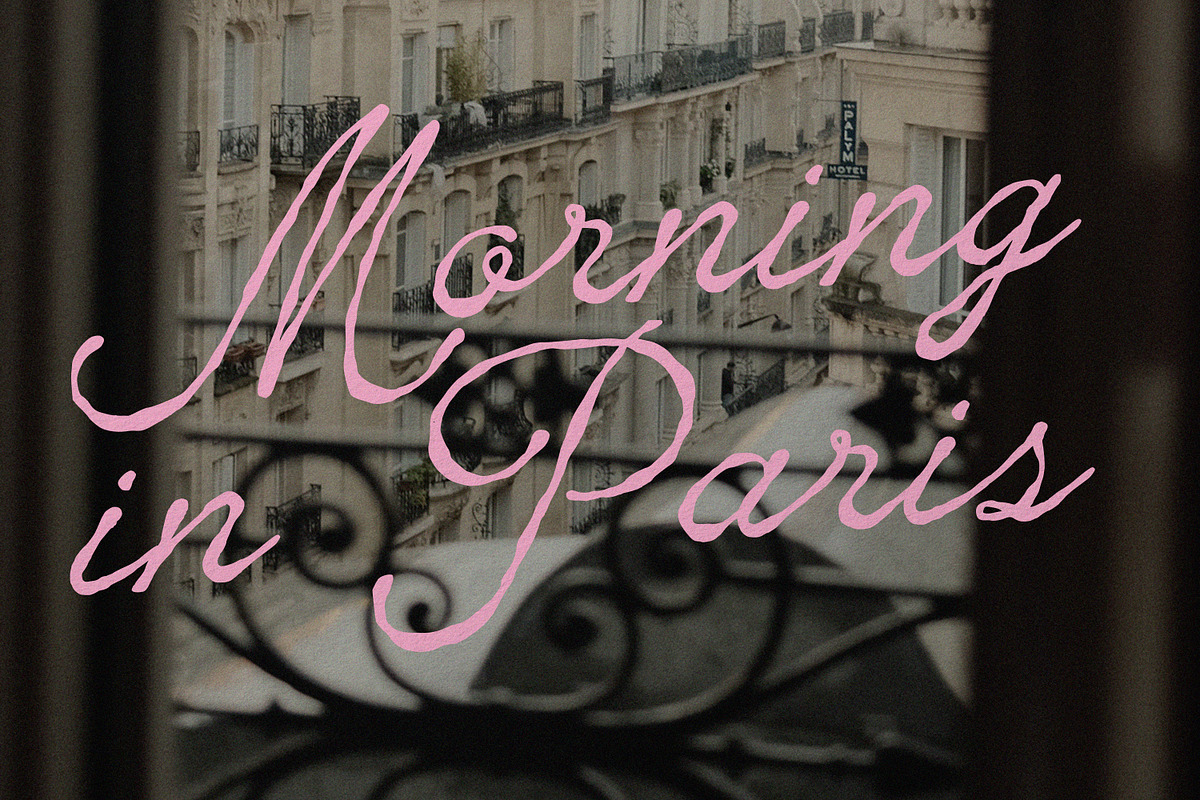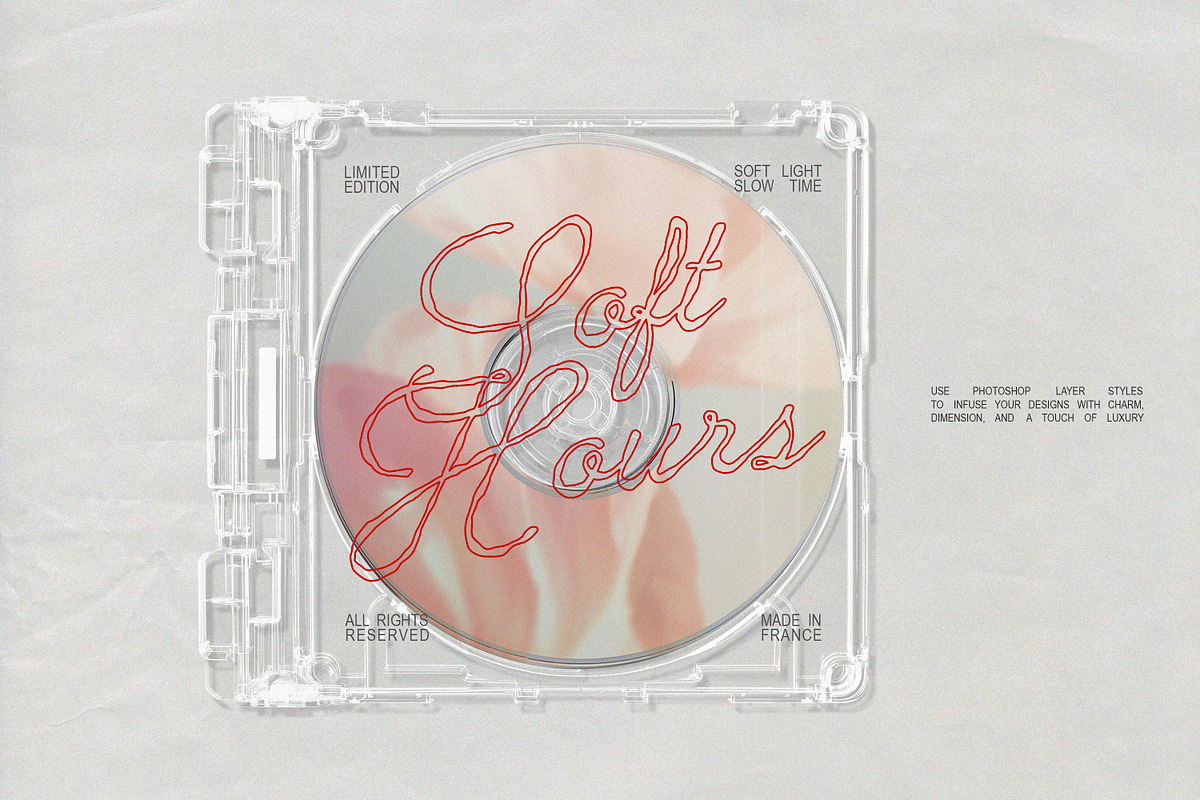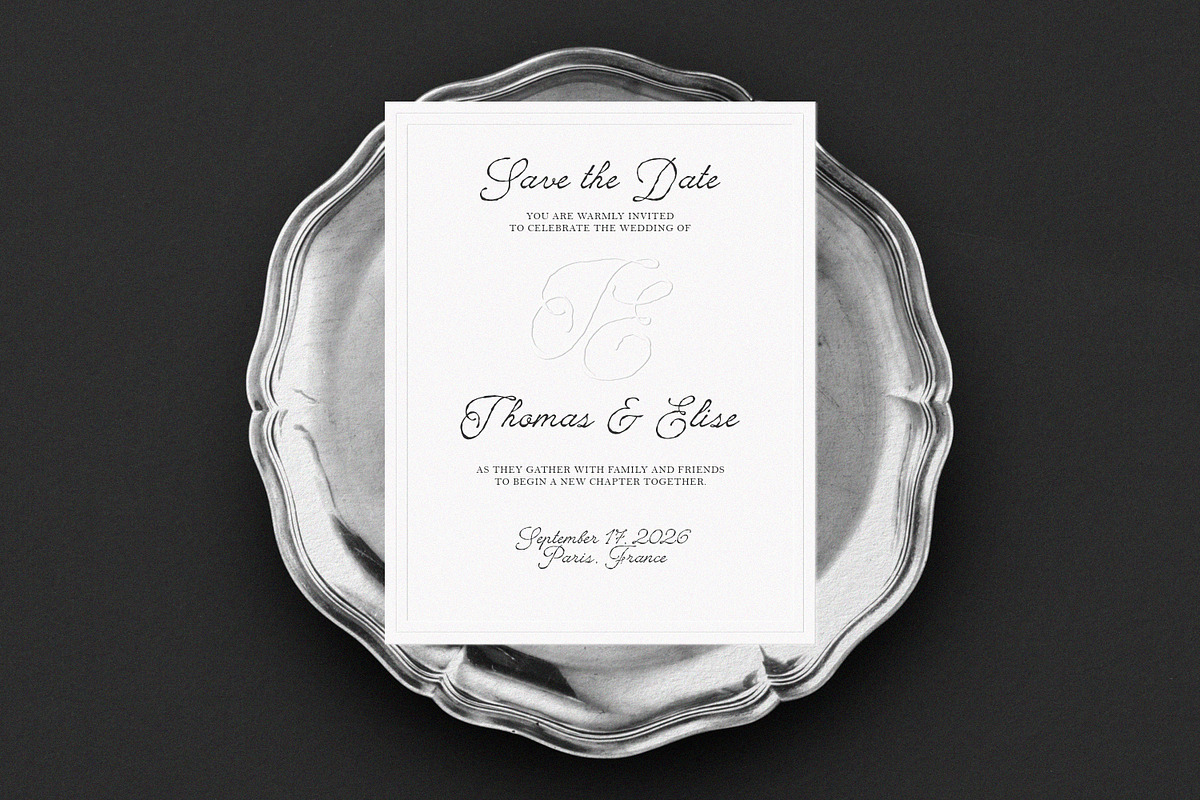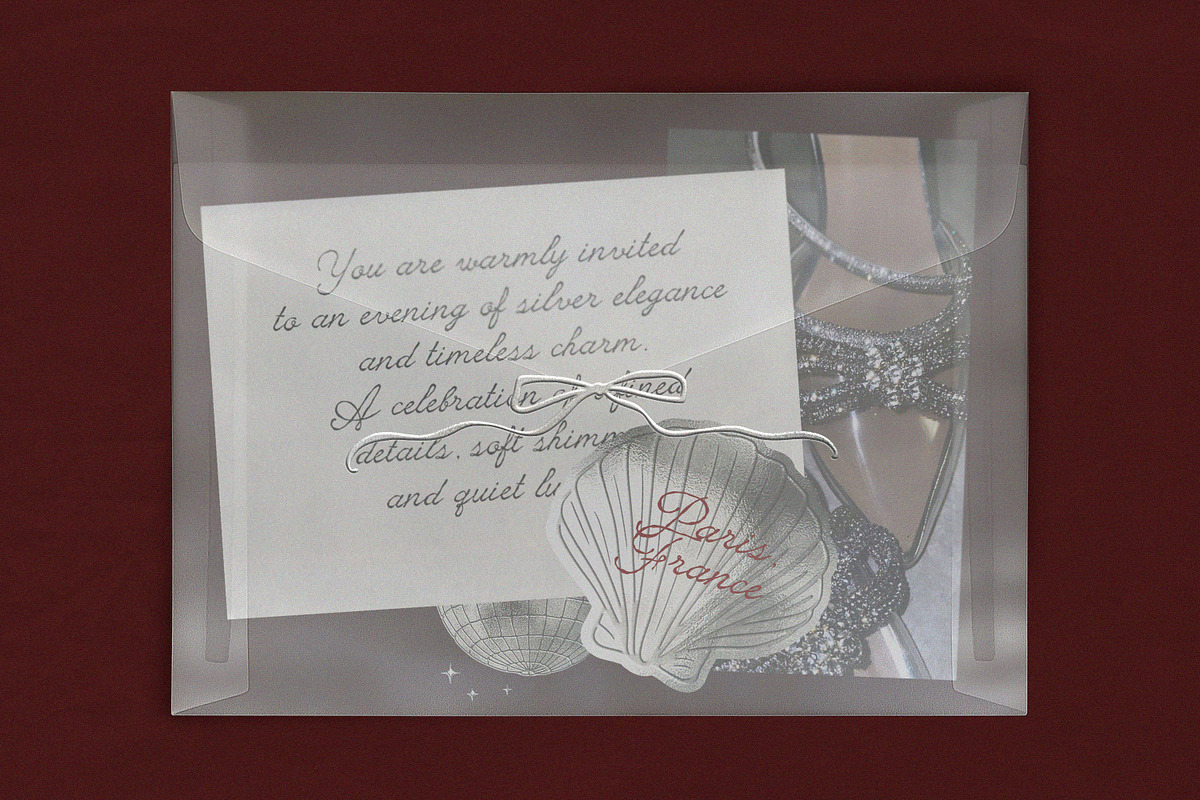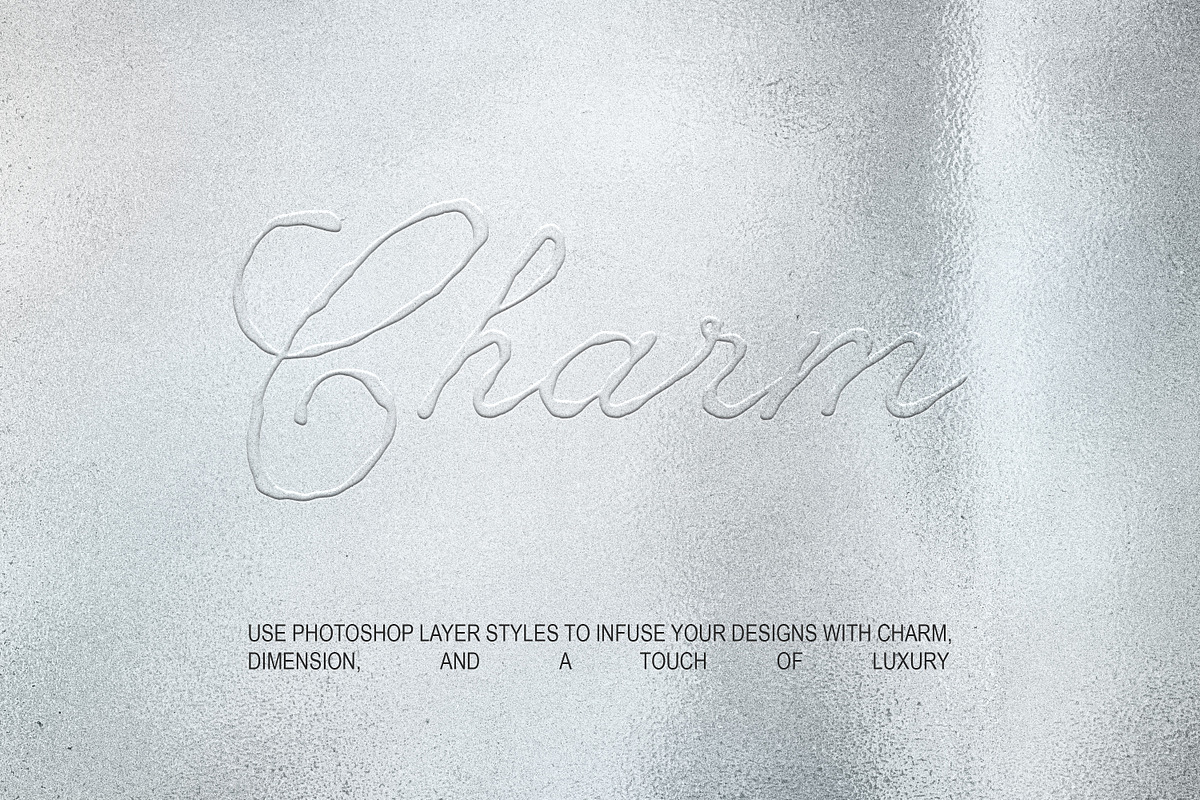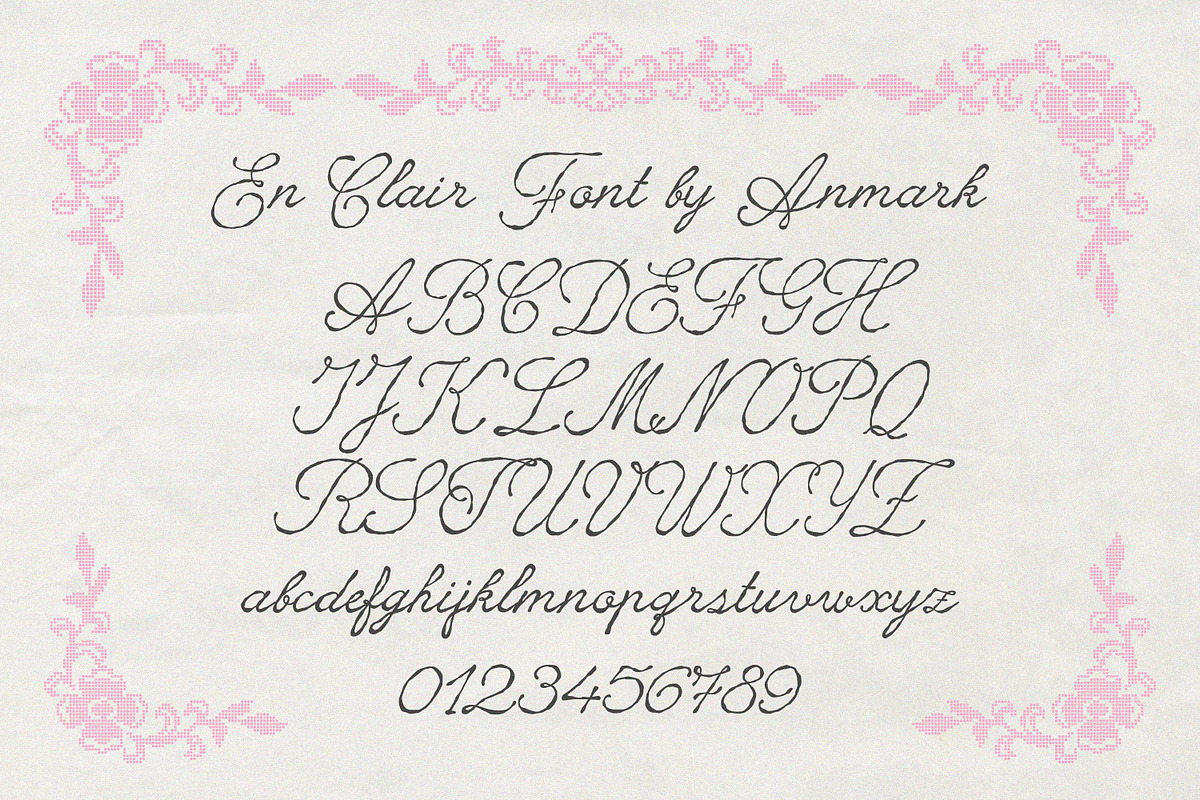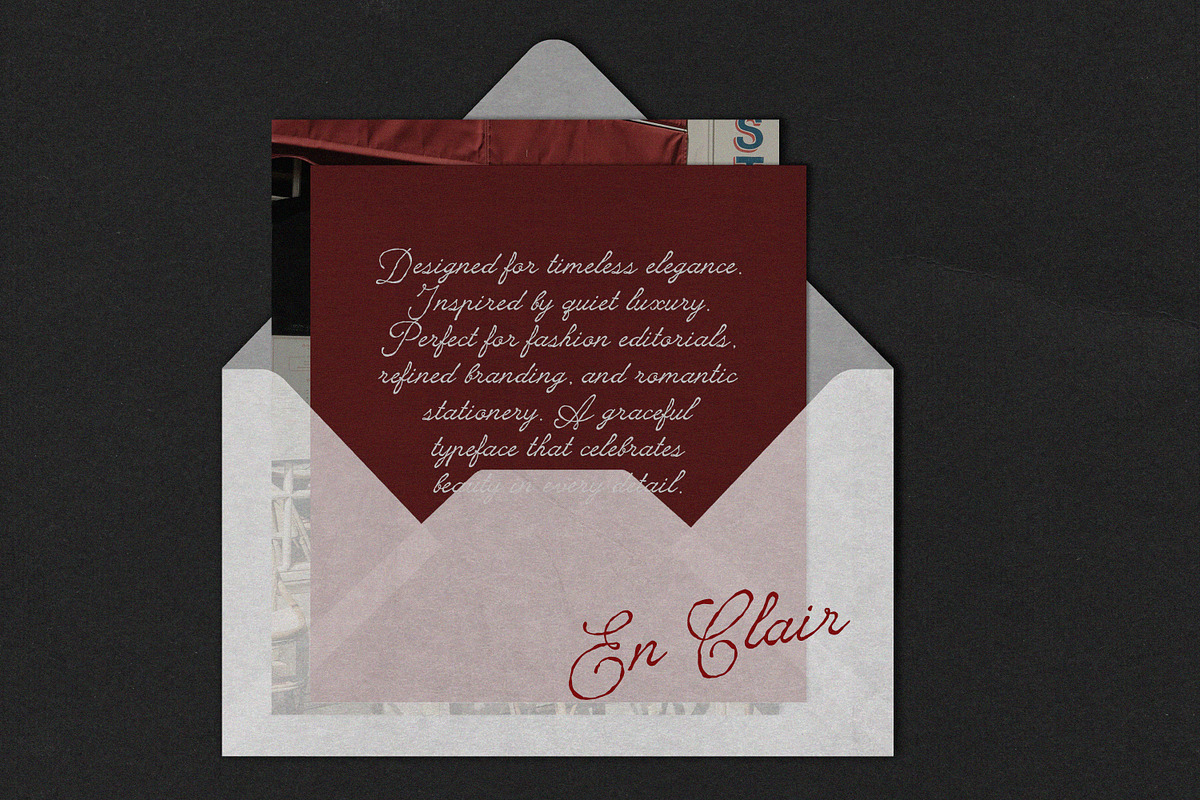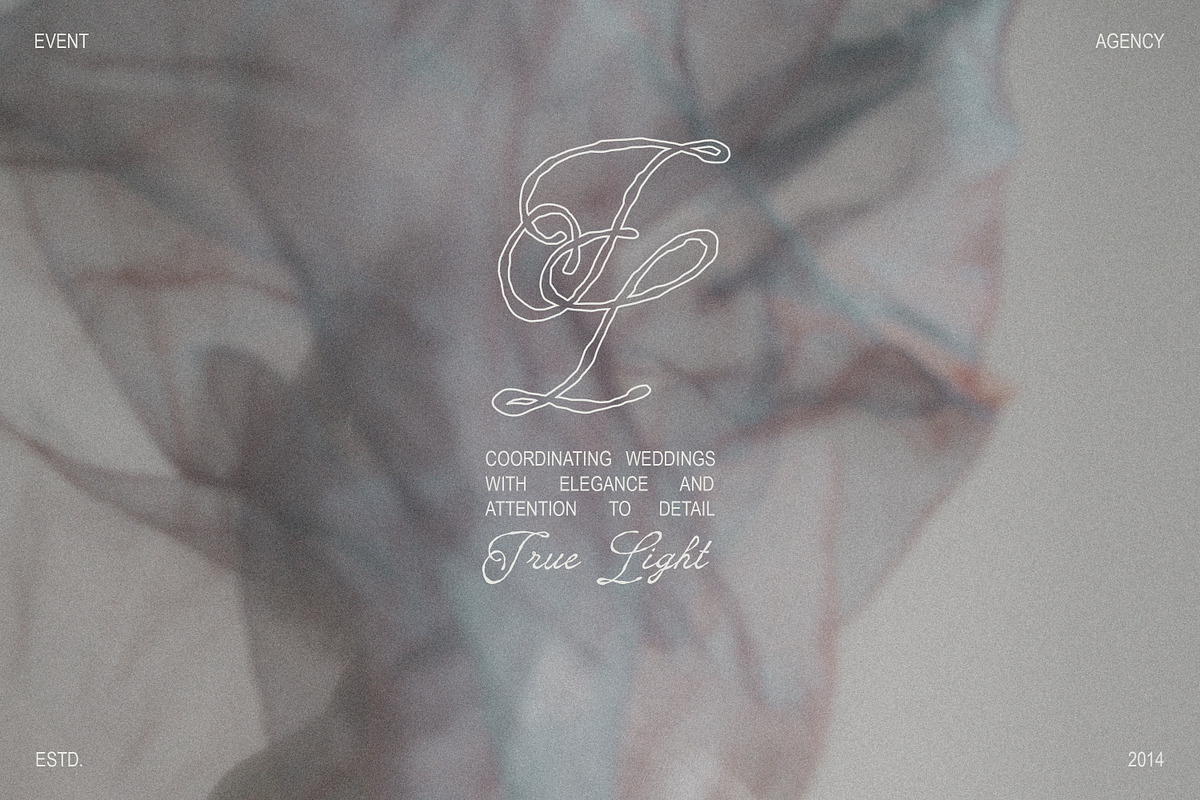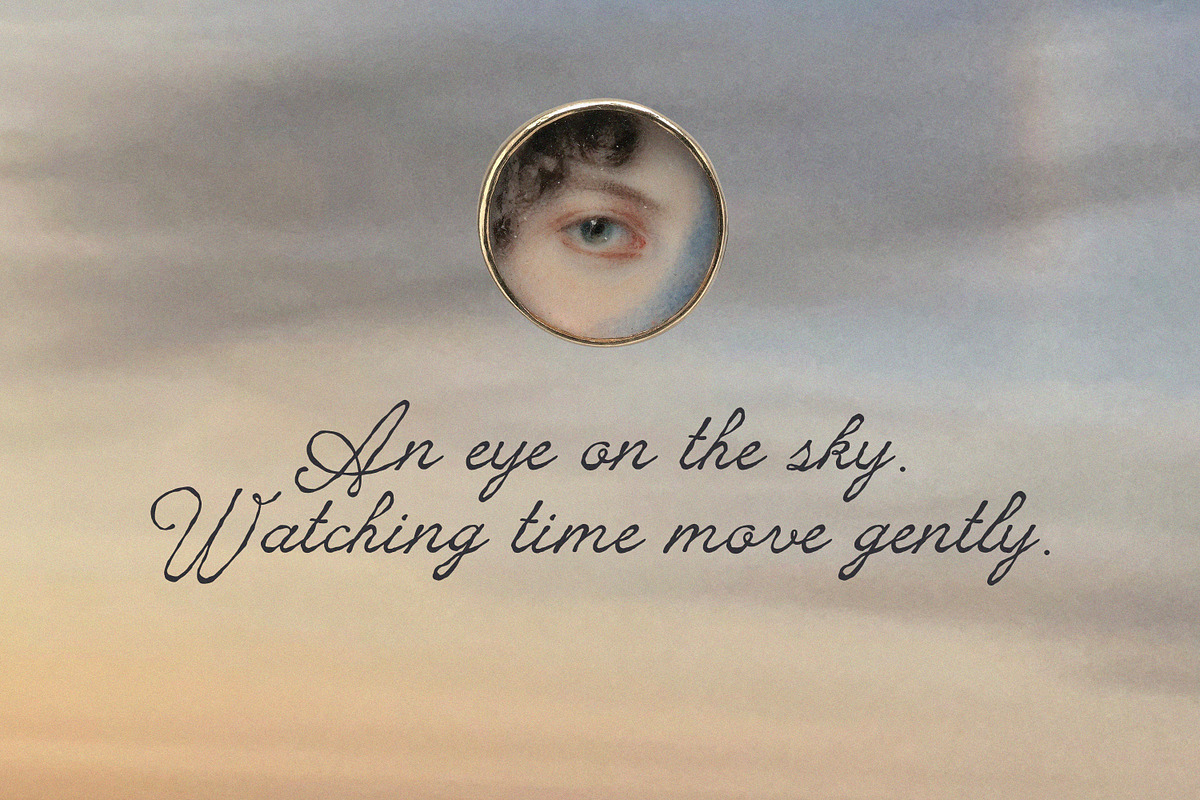
En Clair Vintage Rough Script Font
En Clair is an elegant and sophisticated vintage script font with a unique hand-crafted texture, bringing a timeless and luxurious feel to every project. Its flowing calligraphy style is perfect for creating romantic wedding invitations, bridal stationery, and save-the-date cards, while also lending charm to editorial layouts, fashion branding, lifestyle magazines, and luxury product packaging.
The font’s natural, slightly rough texture adds character and authenticity, giving designs a handcrafted, editorial touch that feels both vintage and modern. En Clair is also ideal for monograms, logos, social media graphics, and personalized gifts, allowing you to create refined and stylish compositions with ease. With multilingual support, this versatile script font ensures your designs look cohesive and polished across languages. Perfect for designers seeking a calligraphy-inspired script with vintage charm, romantic elegance, and a high-fashion aesthetic.